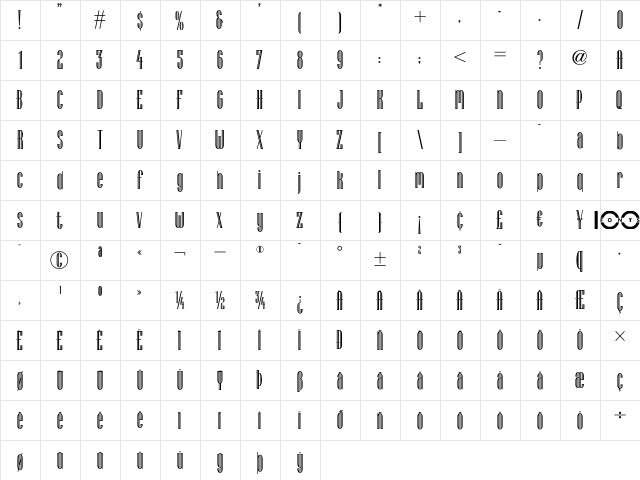
Lagniappe Inline NF Regular
| Foundry | Nick's Fonts |
| Designer | Nick Curtis |
Design Context for Lagniappe Inline NF Typeface
Lagniappe Inline NF brings ornamental detail and strong personality to headlines and identities, where visual impact matters more than quiet functionality.
Font Pairing: Pair with a clean neutral sans-serif for body copy to let Lagniappe Inline NF's character lead without overwhelming the composition.
Pro Tip: Treat Lagniappe Inline NF as the centrepiece of your typographic hierarchy. One strong heading set in a decorative face can carry an entire layout.